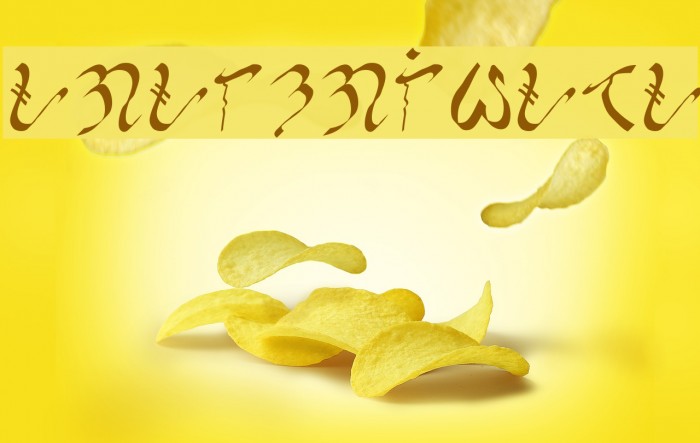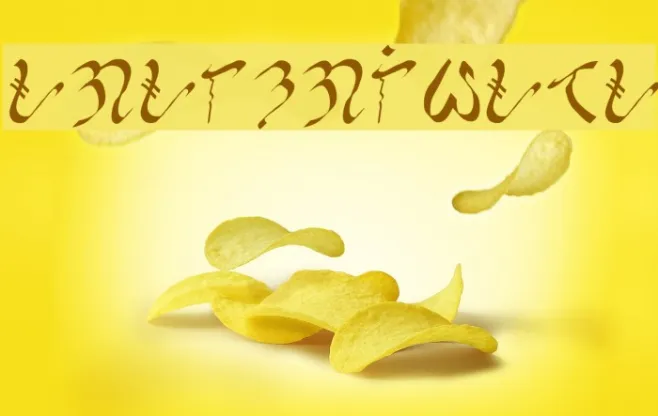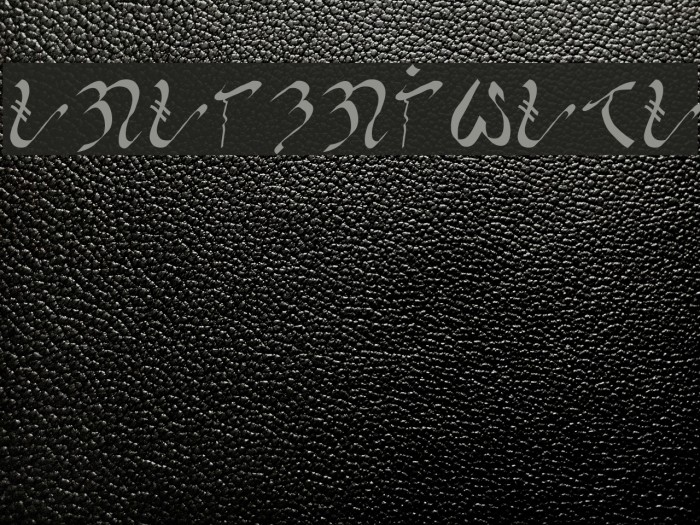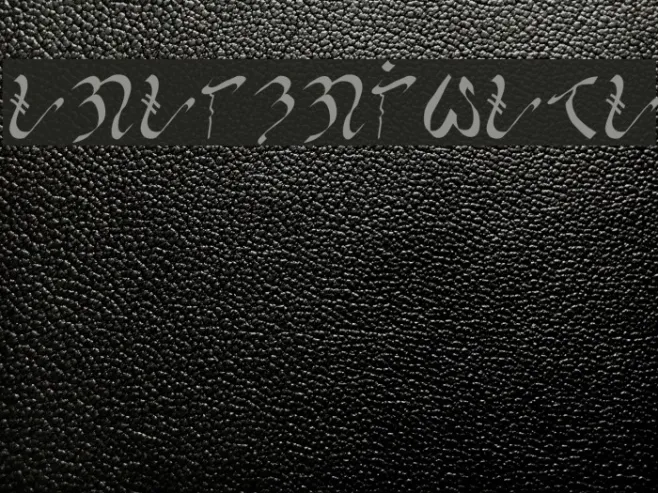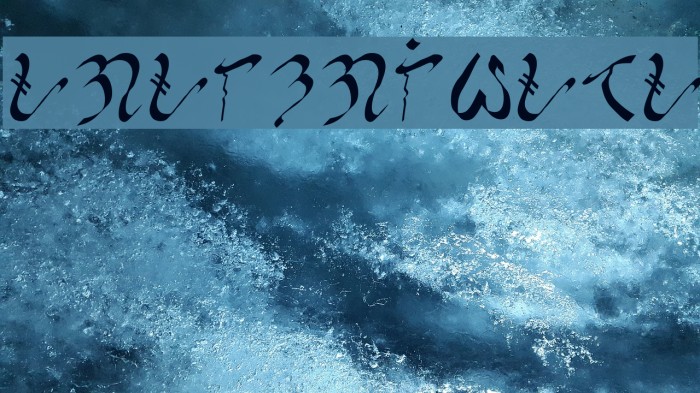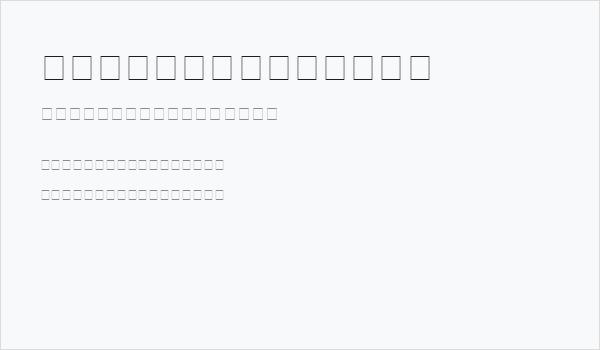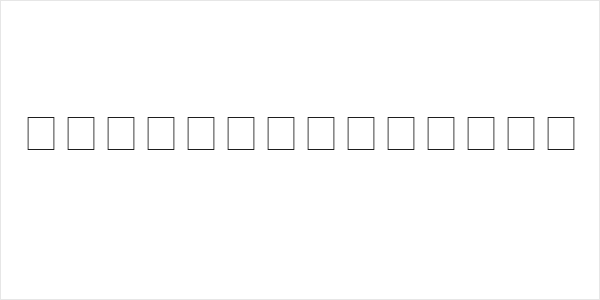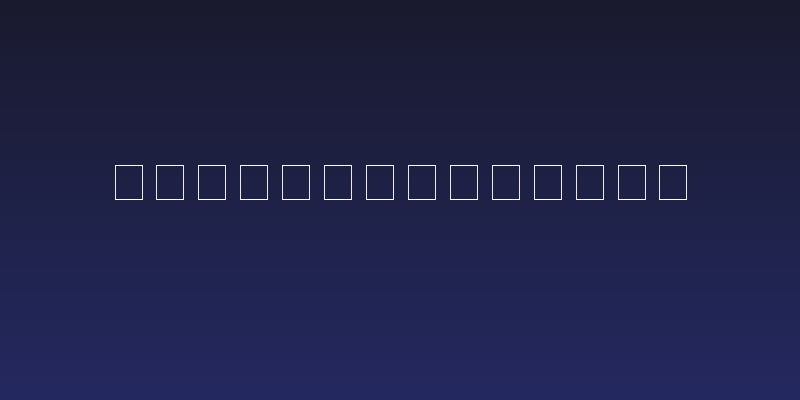
TagalogAlibata Font
TagalogAlibata Description
This font features a unique and artistic style reminiscent of traditional calligraphy with a modern twist. The characters exhibit a flowing, cursive design with varying stroke thickness, creating a dynamic and elegant appearance. The uppercase letters have a bold presence with intricate curves and flourishes, while the lowercase letters maintain a consistent style, offering a harmonious blend of formality and creativity. The numerals are distinct and easily readable, complementing the overall aesthetic. Special characters are designed with similar attention to detail, enhancing the font's versatility.